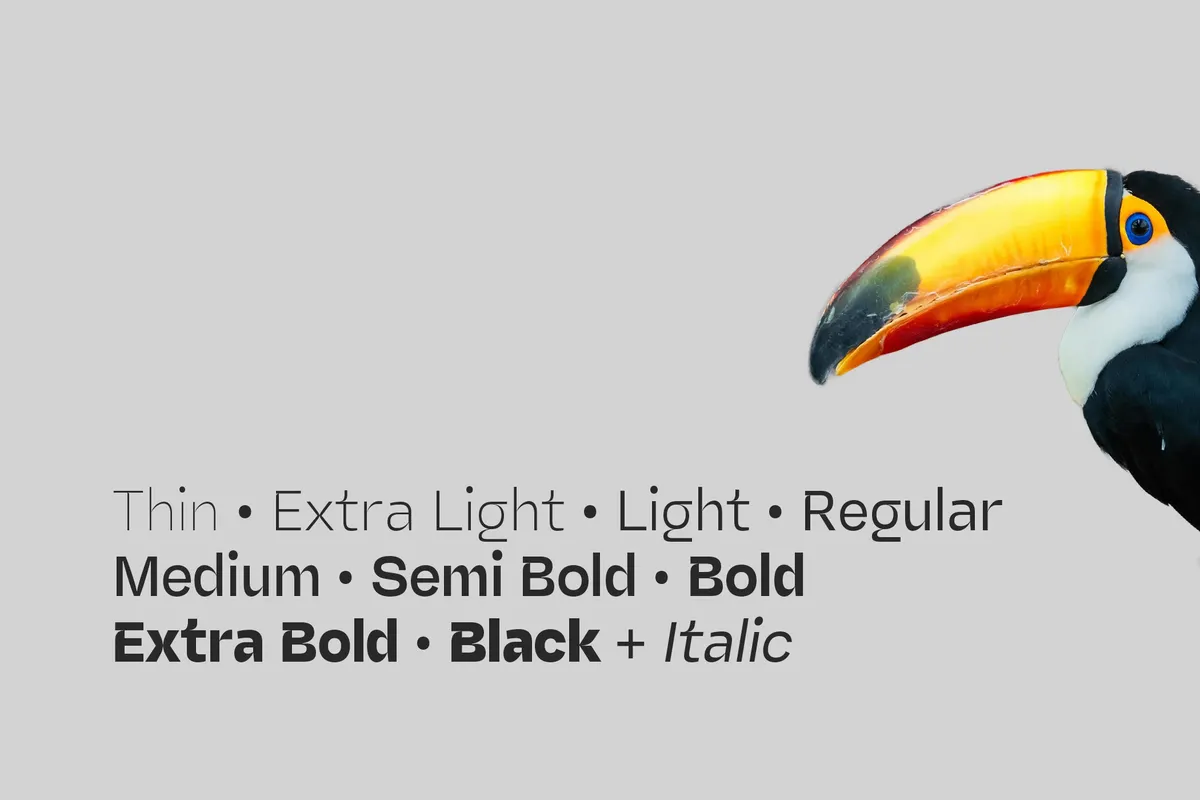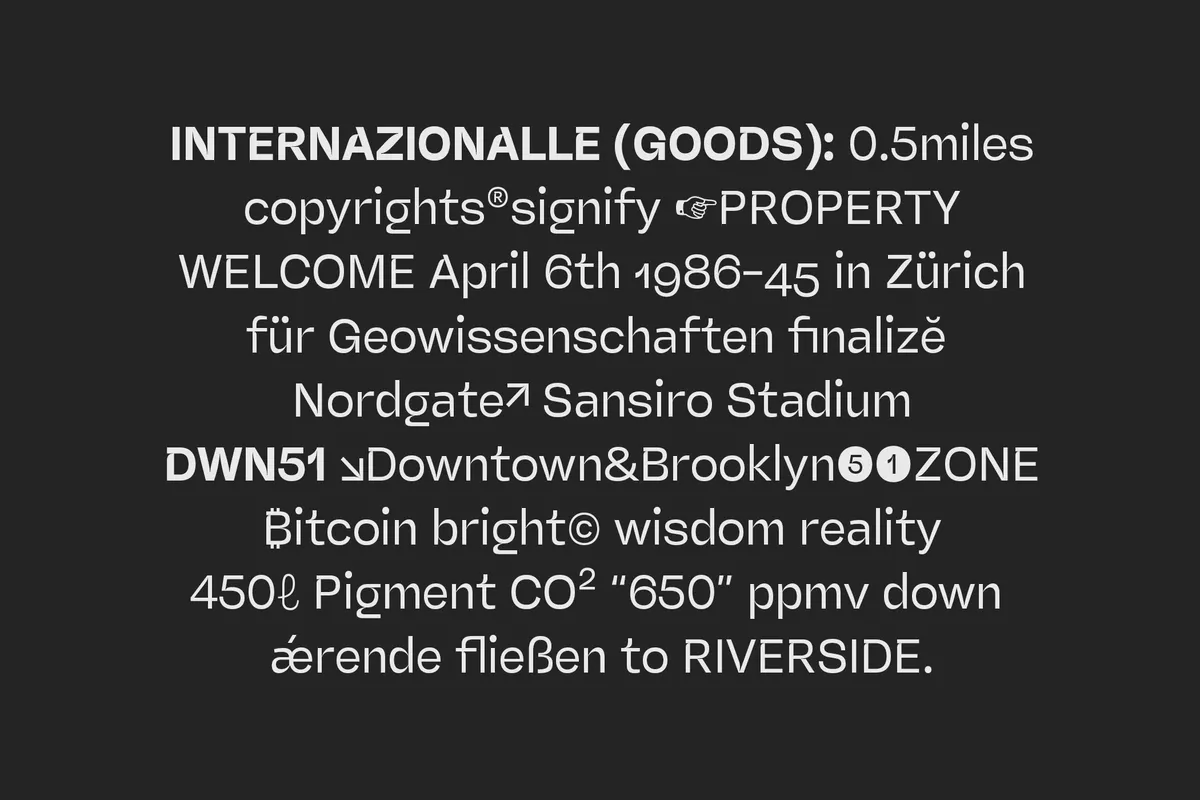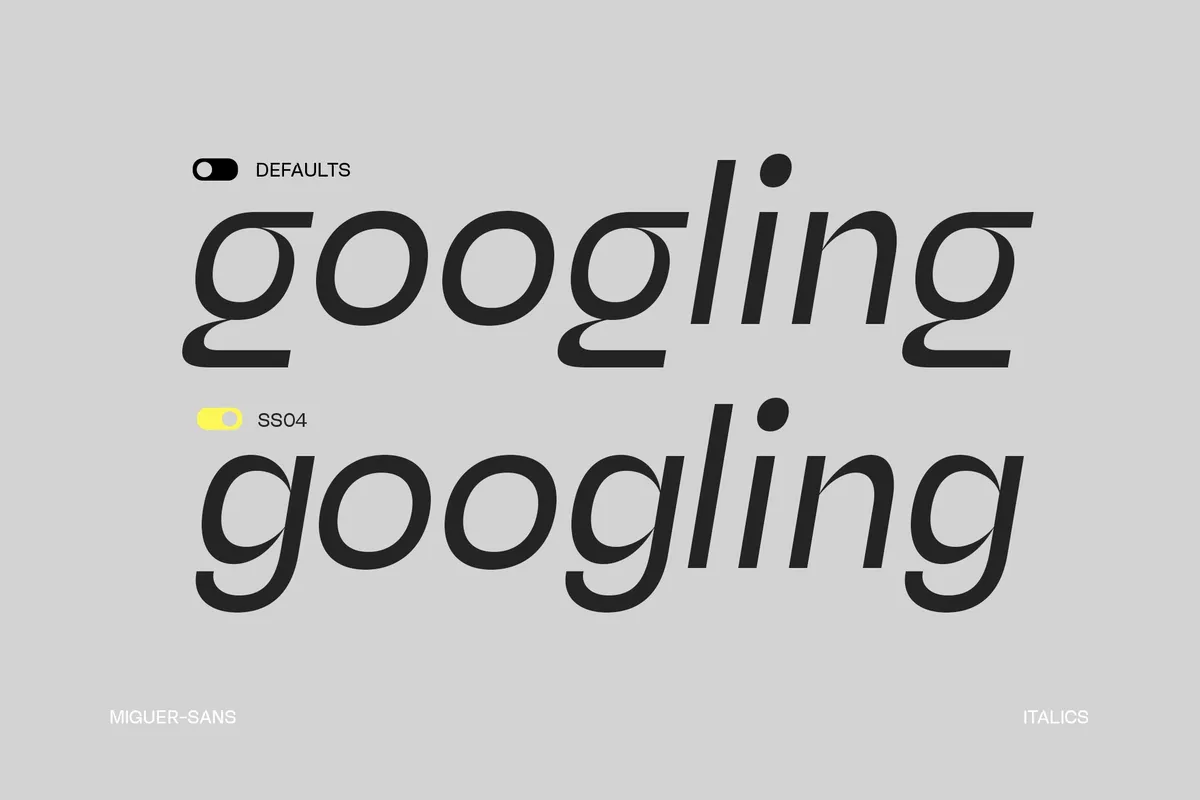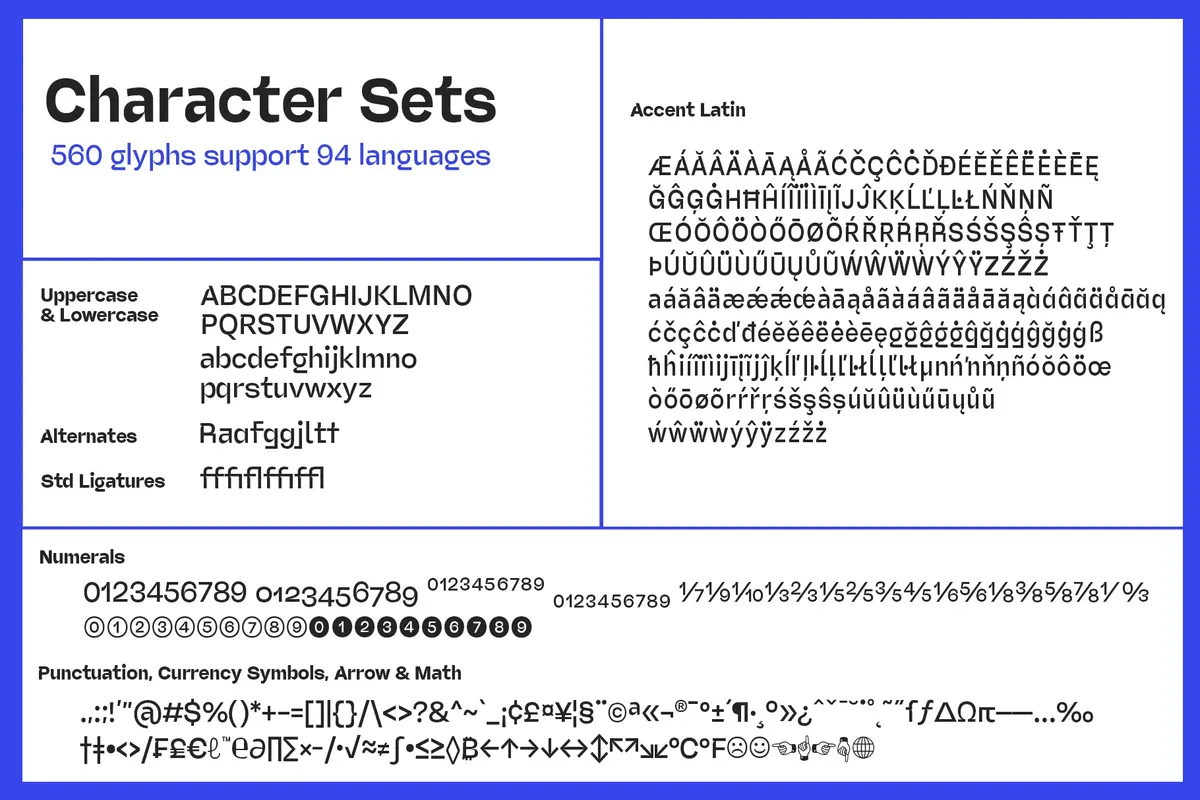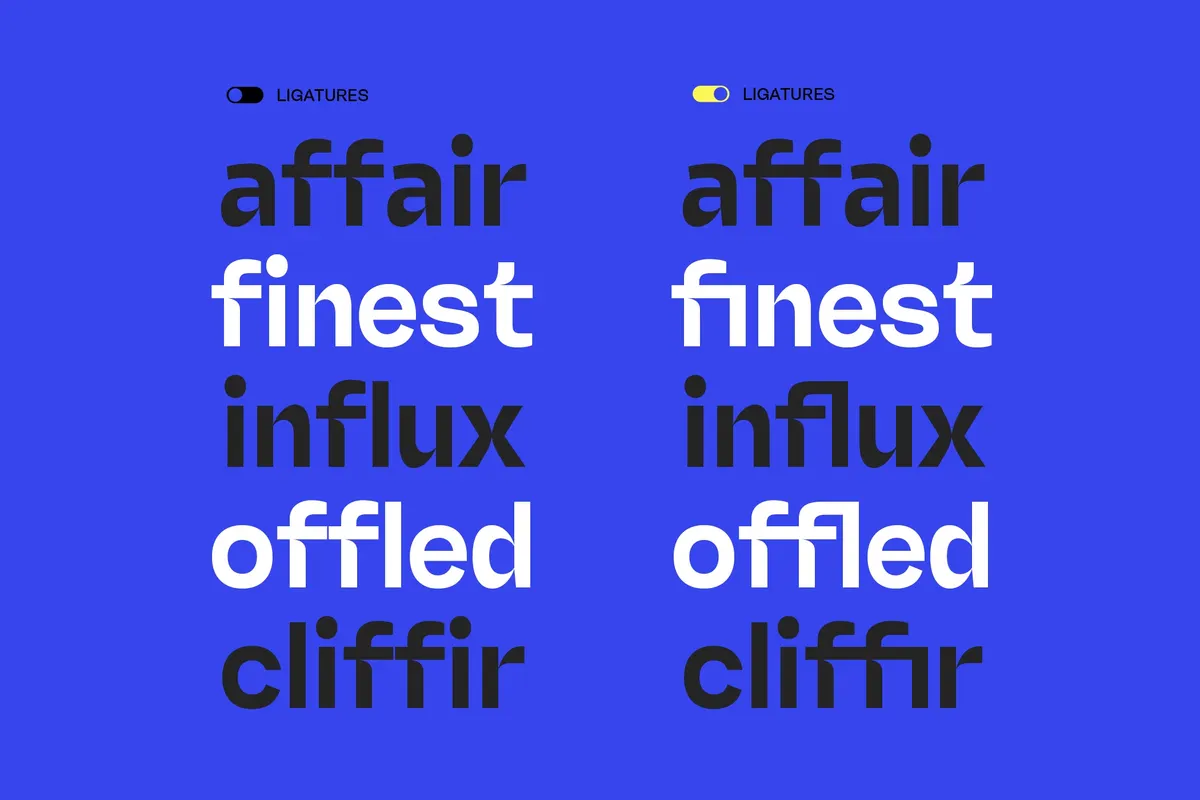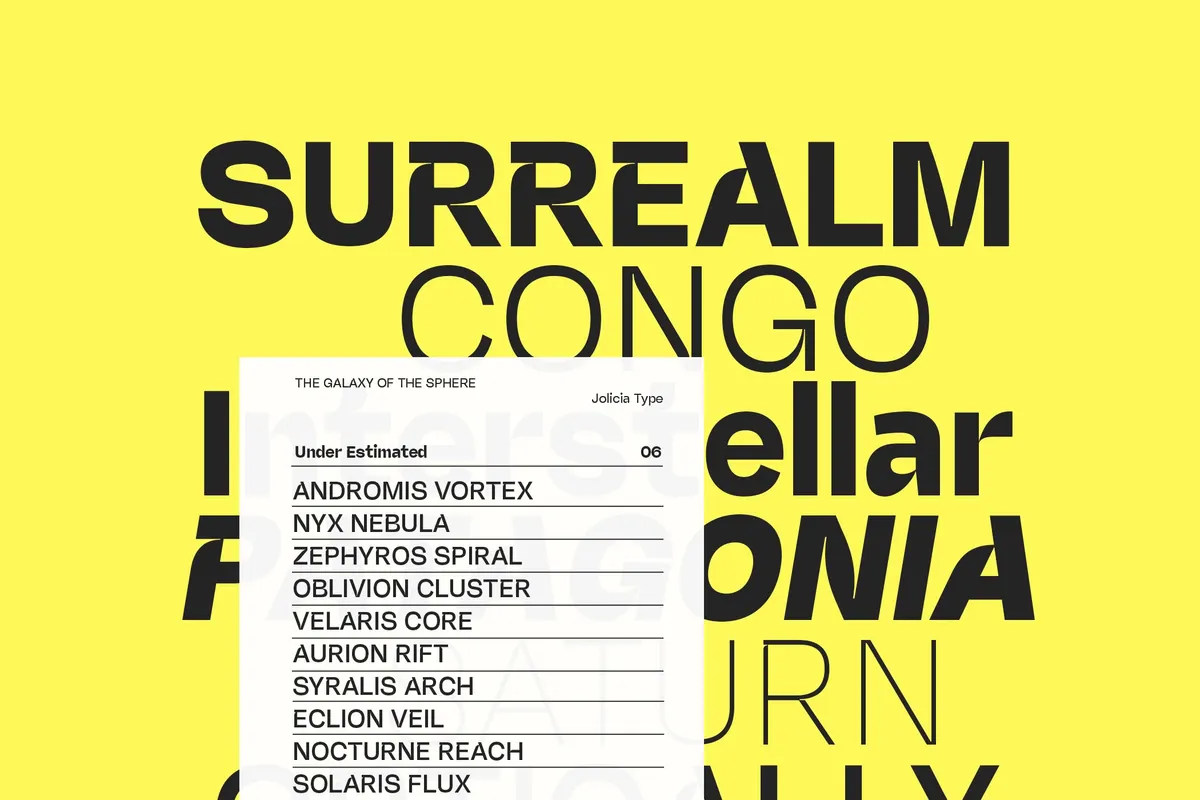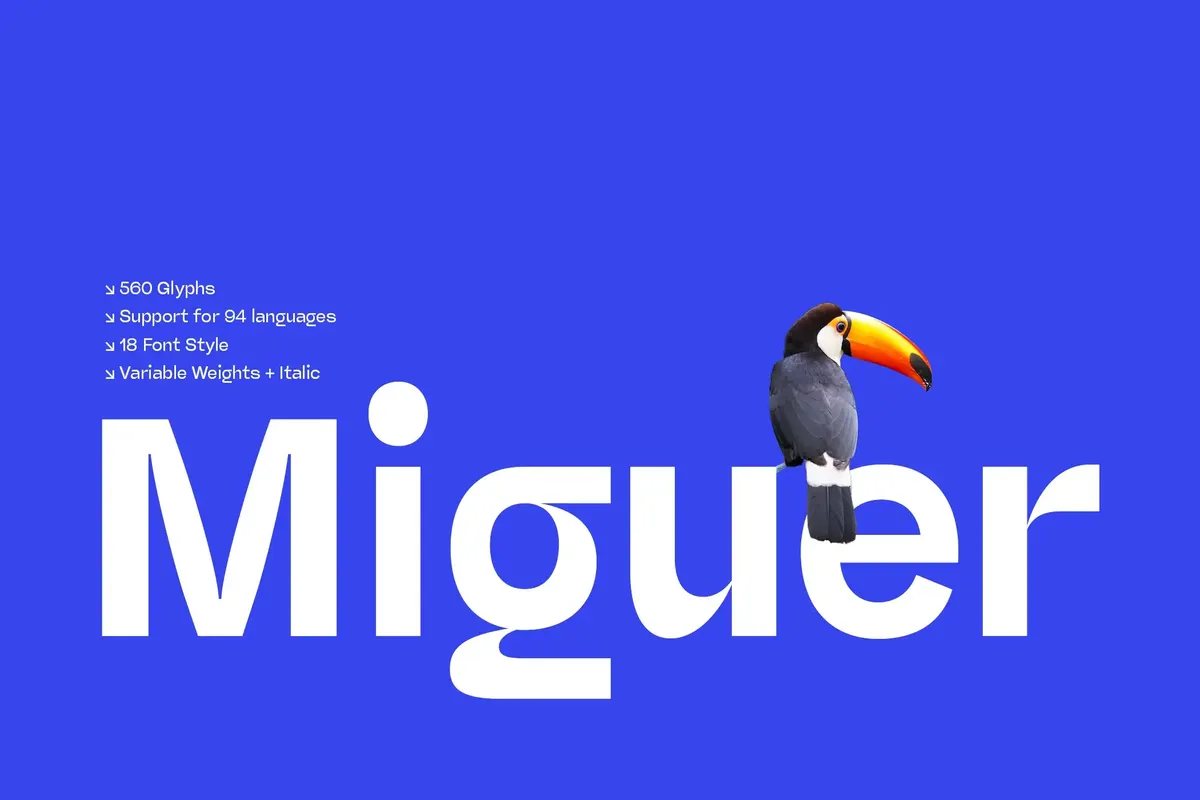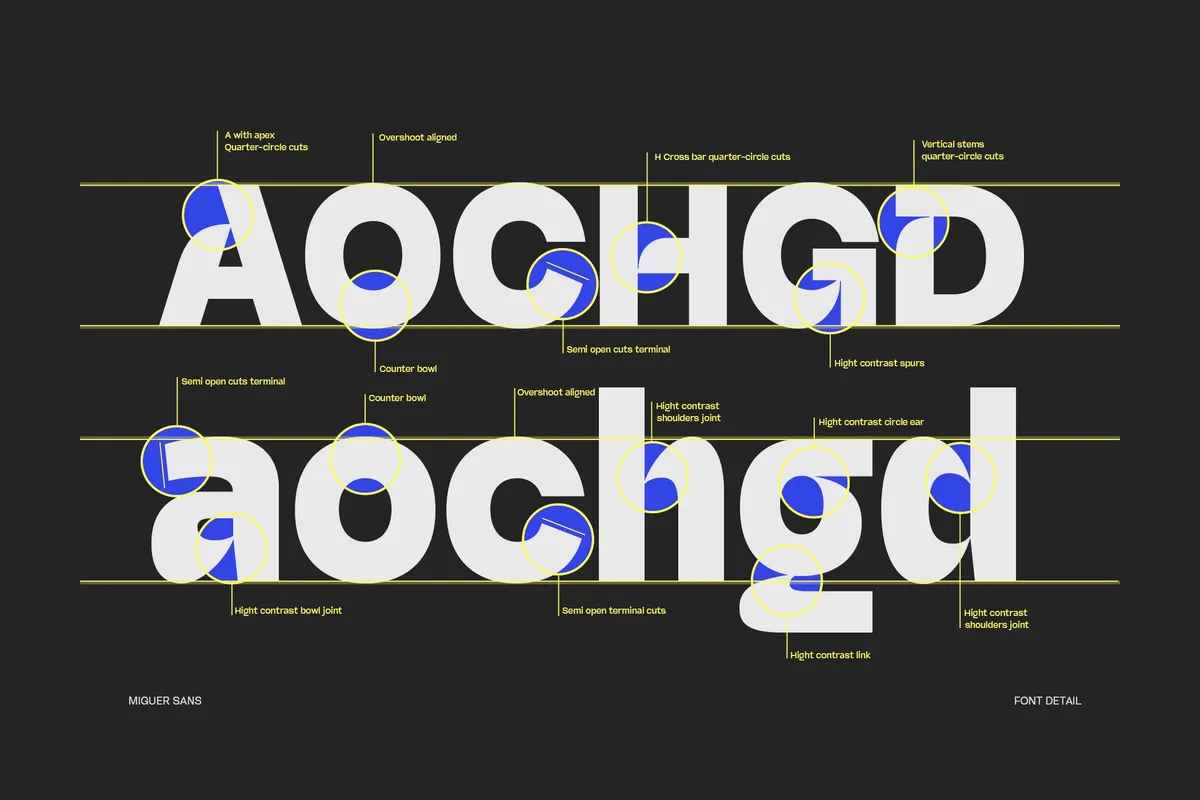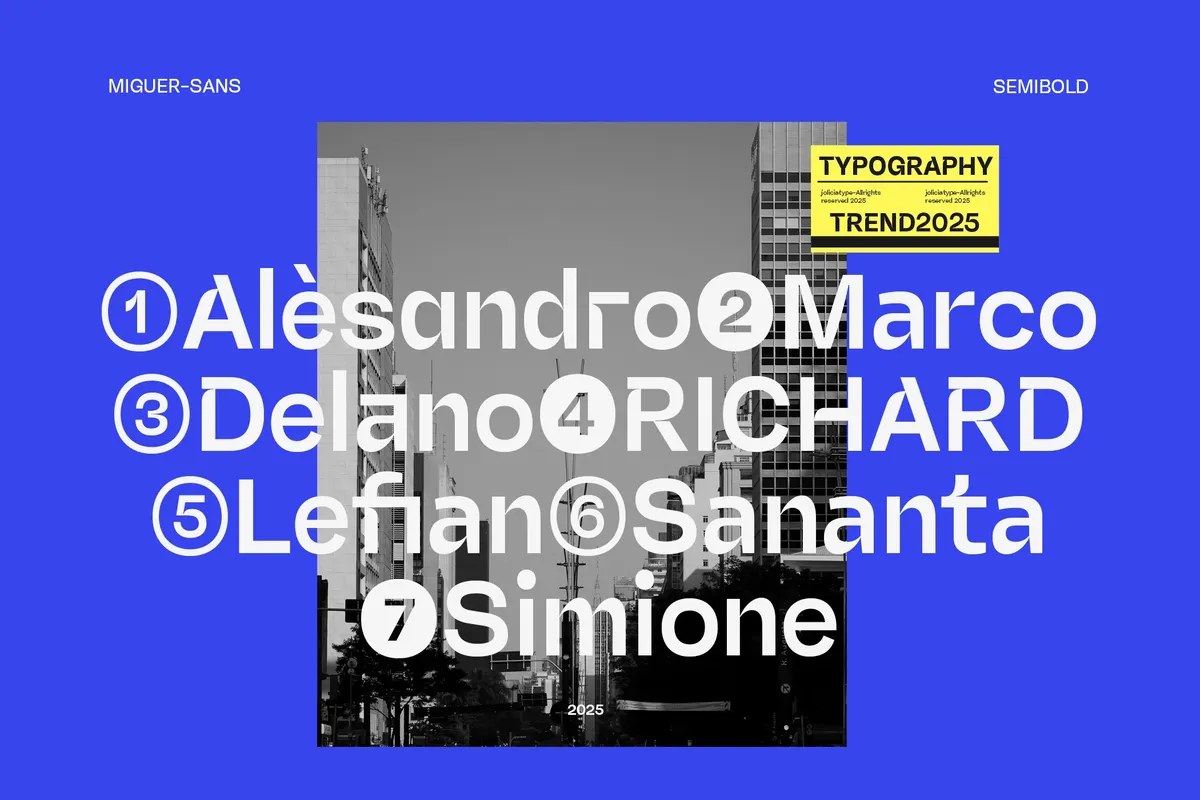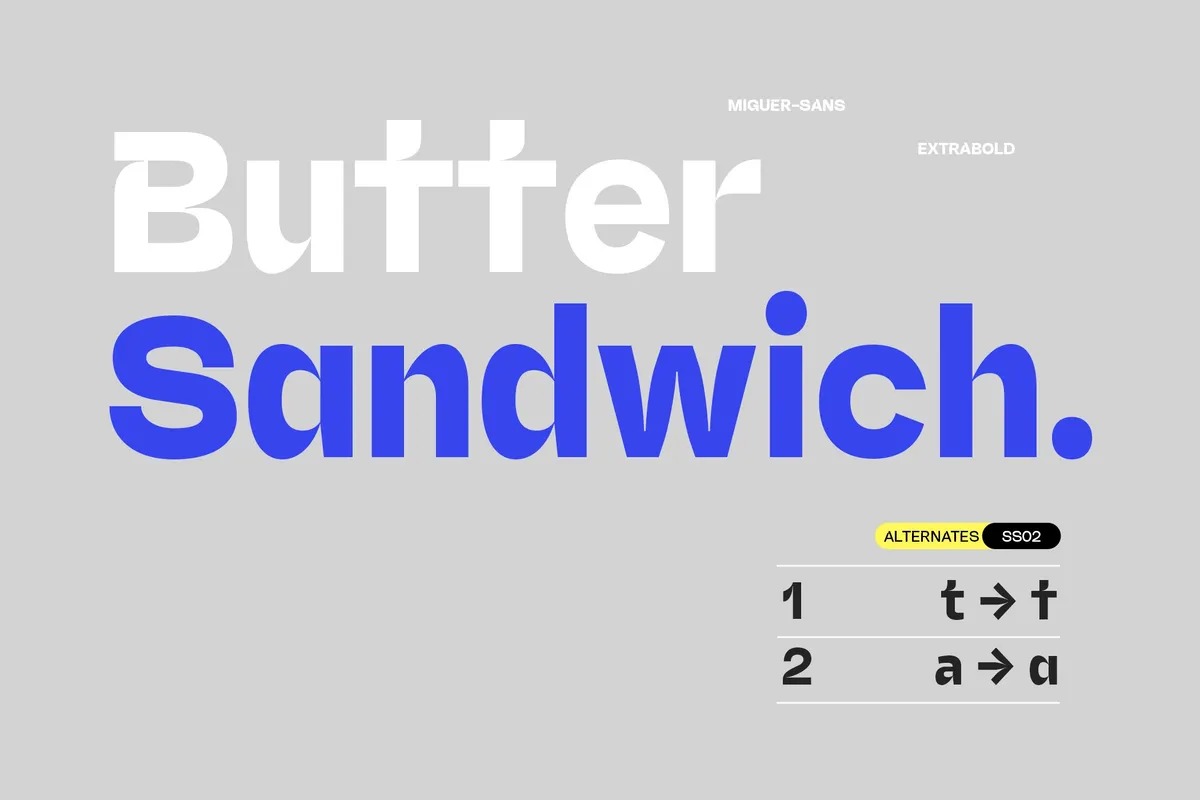
Miguer Sans - High-Contrast Grotesque Font Family
Miguer Sans cuts its stems and terminals at a quarter-circle angle instead of a flat perpendicular edge, giving apexes, crossbars, and shoulder joints a rounded, faceted finish across the family. The contrast sits between thick vertical stems and thinner curved bowls, closer to a high-contrast sans serif font than a humanist grotesque, with counters that stay slightly open at the terminal cuts.
The family runs nine weights from Thin to Black, each paired with a matching italic, so headlines and body copy pull from the same 18-style system without mixing separate faces. Stylistic alternates swap in single-story lowercase forms for R, a, f, g, j, k, l, r, t, and y, and a dedicated stylistic set opens the italic g into a looped, more casual descender. Use it for magazine mastheads and feature headlines, tech and architecture branding, fashion and editorial logos, web and app UI, event posters, and multilingual publishing across Central European, Baltic, and Nordic-language projects.
- 9 weights (Thin - Black), each with a matching italic — 18 styles total;
- uppercase & lowercase;
- numerals (lining & oldstyle), fractions, ordinals, superscript & subscript;
- stylistic alternates;
- 4 stylistic sets, standard ligatures & case-sensitive forms;
- kerning support;
- 560 glyphs total;